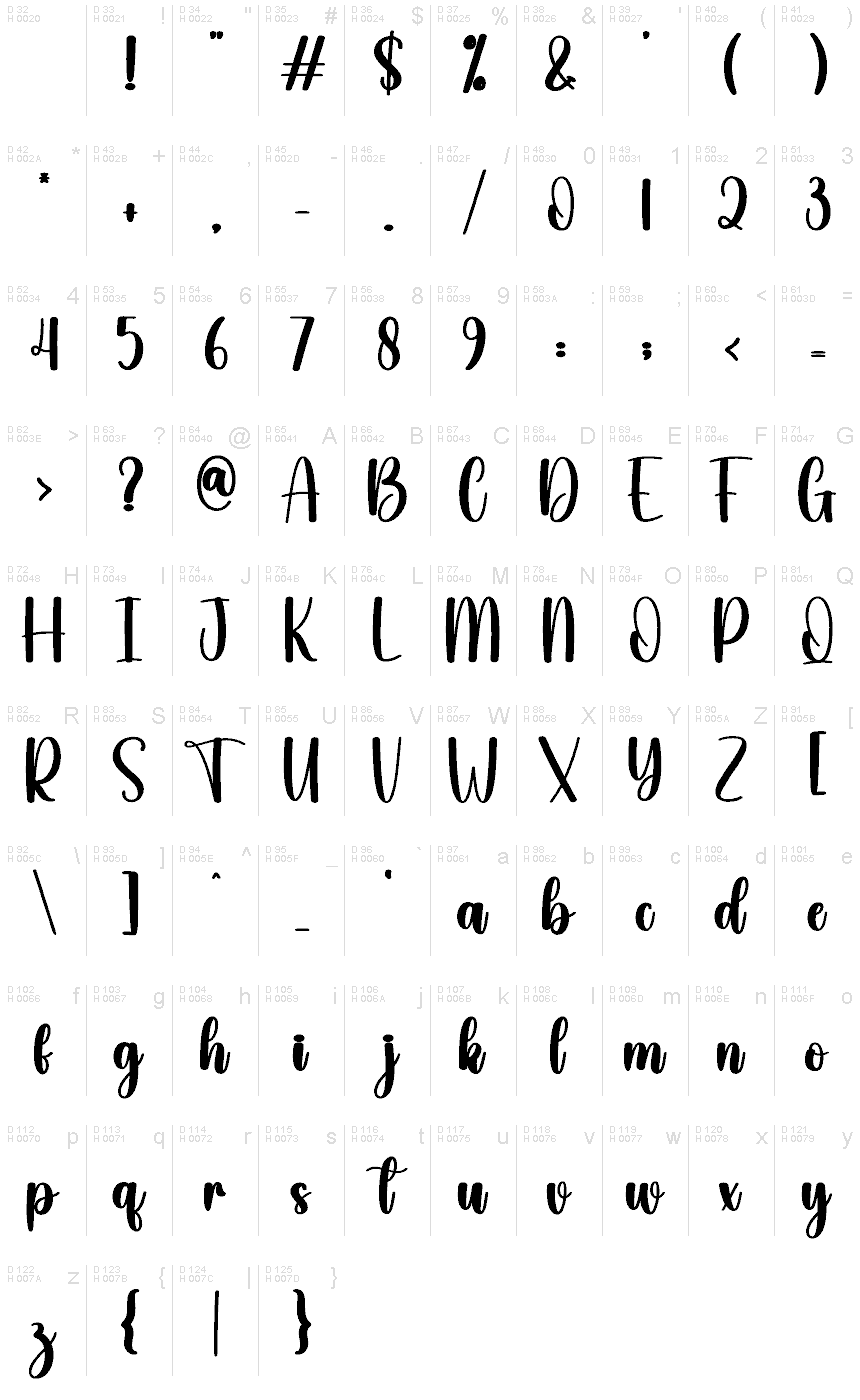
Beagle
Beagle font by Scratchones is an elegant and flowing handwritten typeface, offering a contemporary touch with its expressive design. Its relaxed ambiance brings a delightful charm that seamlessly integrates into any creative project requiring a personal touch.